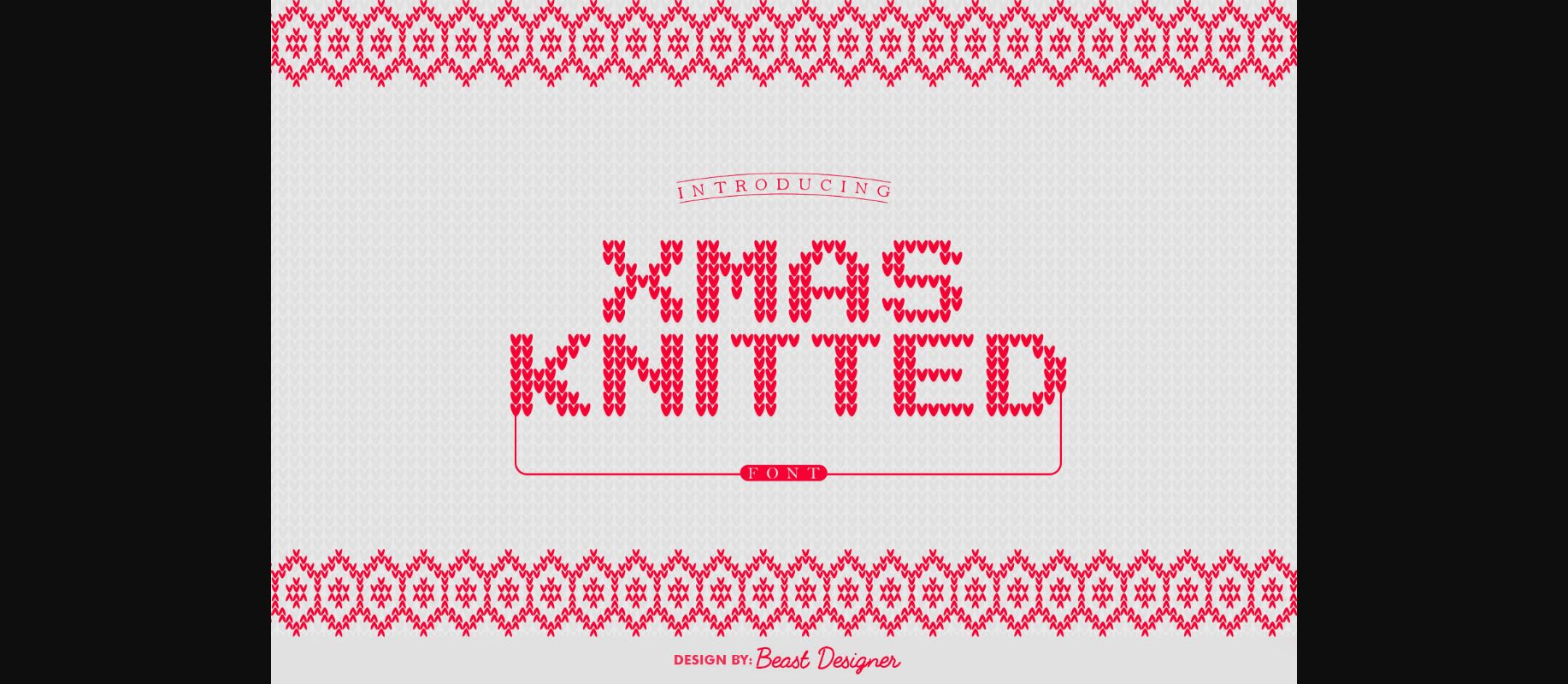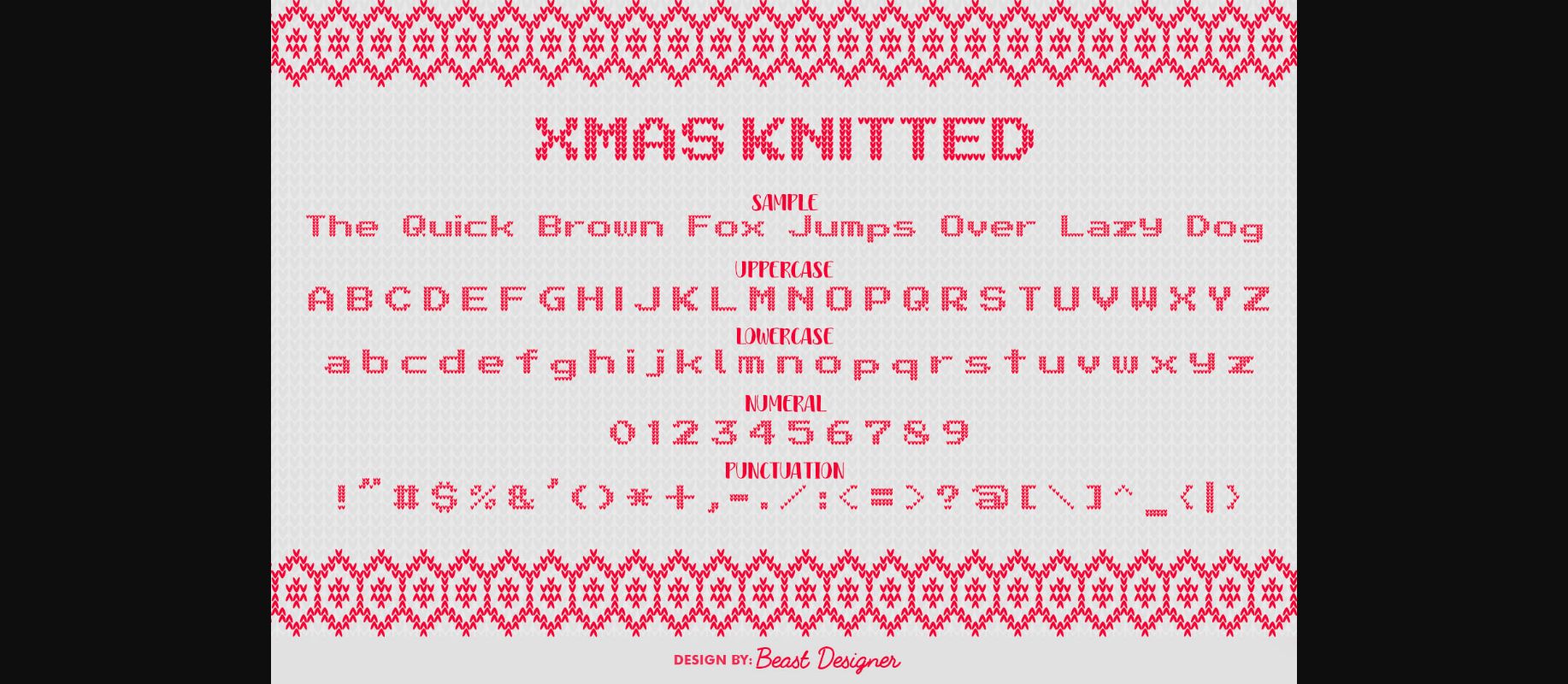
Xmas Knitted Font
About Xmas Knitted Font
Xmas Knitted is an incredibly unique decorative font. This original look will appeal to a wide range of crafty ideas, from letterheads and titles, to stationery.